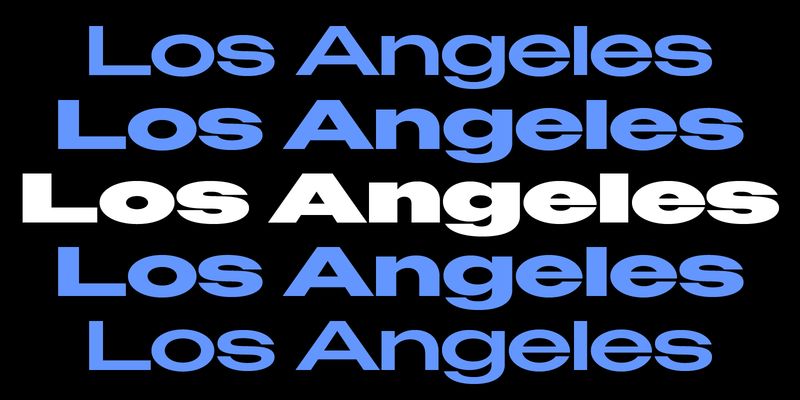
Owners Font Free Download is a sleek, modern sans-serif typeface designed for bold and impactful use. With its clean lines and contemporary aesthetic, Owners is perfect for high-end branding, editorial design, posters, and other creative projects where clarity and strength are essential. Its versatile design works well across various media, both digital and print, providing a timeless feel with a modern twist.
This font is designed for easy readability while maintaining a distinctive and sophisticated appearance. It's ideal for use in headings, titles, or logos where you want to make a statement without overwhelming the design. Owners supports both uppercase and lowercase characters, punctuation, and numerals, offering flexibility for diverse projects.